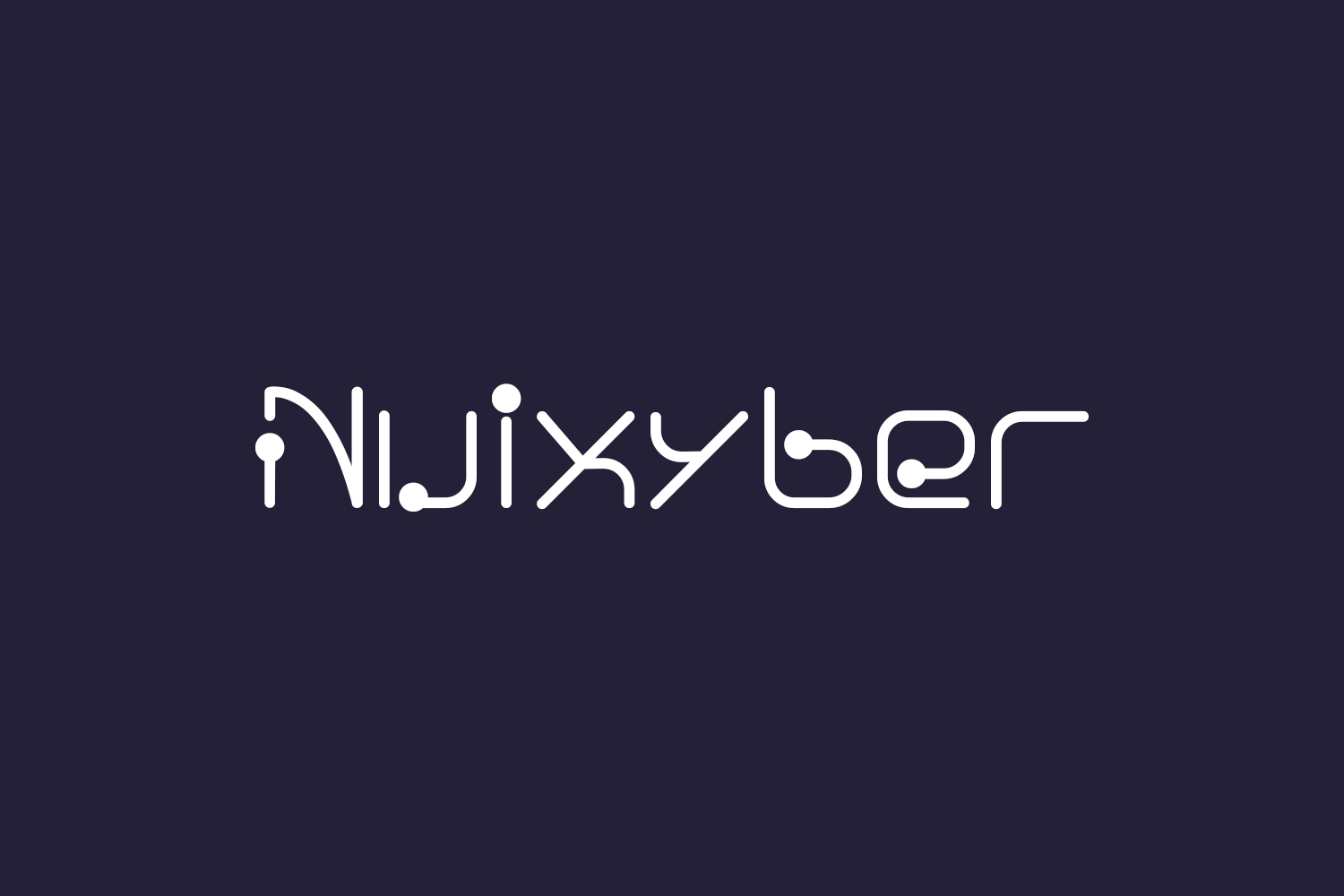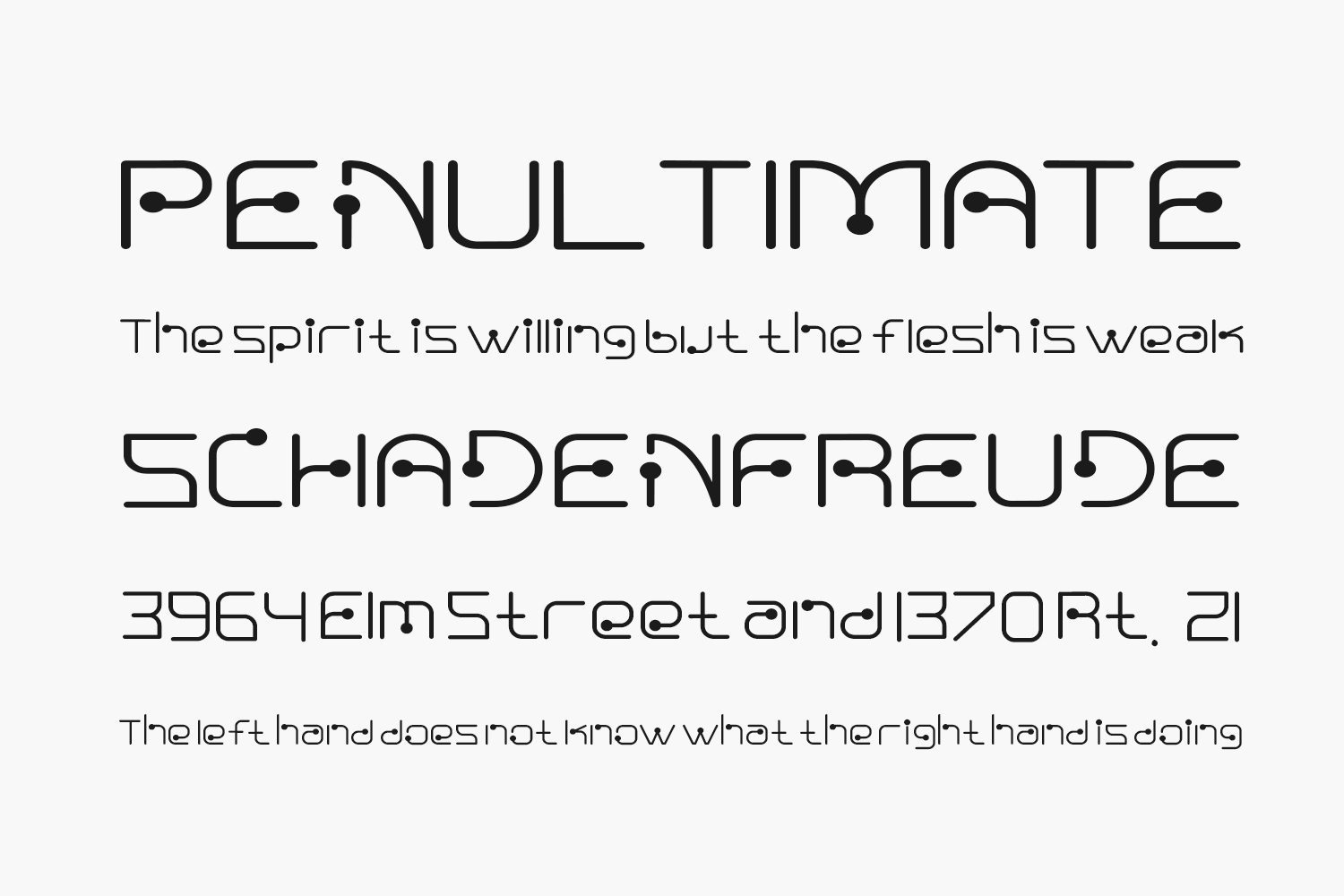
Nuixyber Free Font is a cool and modern display font. It will look stunning on any poster, flyer or print. Use this font for your designs and explore its endless possibilities. Nuixyber Free Font was designed by Ffeeaarr is a demo and free for personal use only. Please purchase the full version for commercial use.